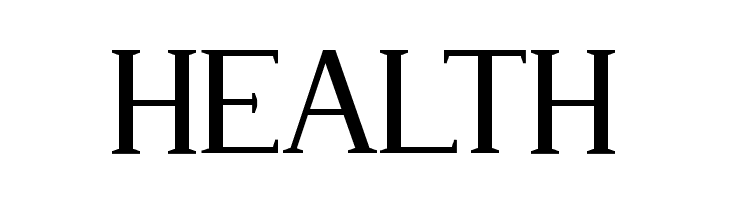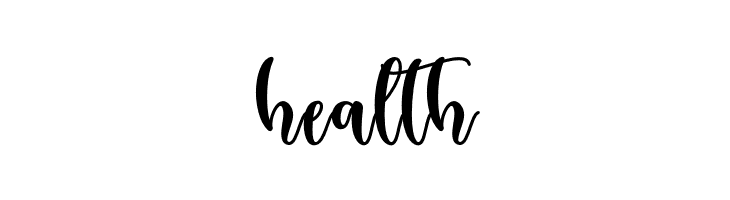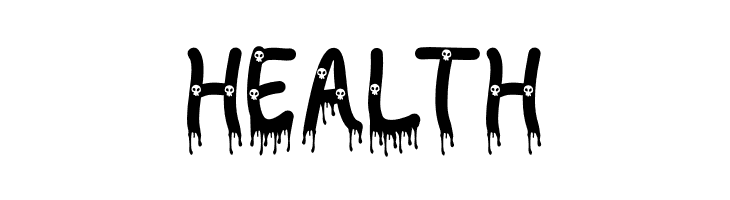
A classic serif font with elegant strokes and a sophisticated appearance.
A playful, handwritten font with flowing, cursive-like strokes and a modern aesthetic.
A modern, geometric sans-serif font with clean lines and a slightly condensed style.
A bold, geometric font with a strong, industrial feel.
A playful and elegant script font with a handwritten style.
A whimsical, festive font with playful curves and a handwritten calligraphy style.
A playful and elegant script font with modern, flowing cursive forms.
A playful, handwritten font with flowing, interconnected letterforms.
A festive, cursive font with elegant, flowing lines, perfect for holiday designs.
A bold, dripping font perfect for horror-themed designs.